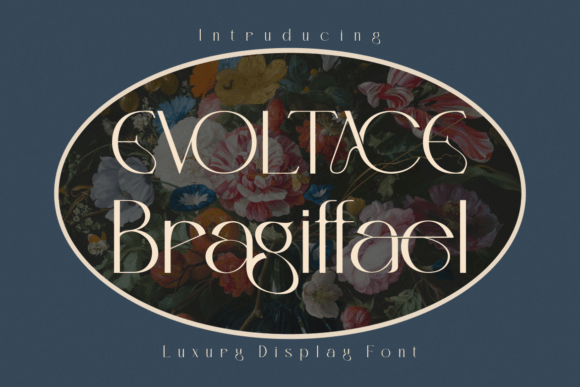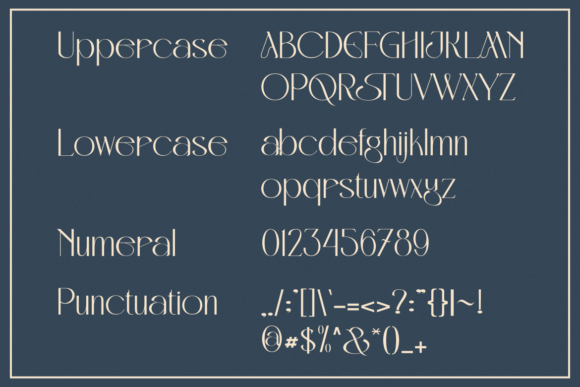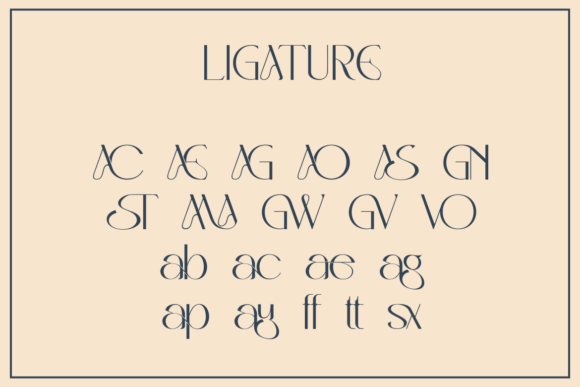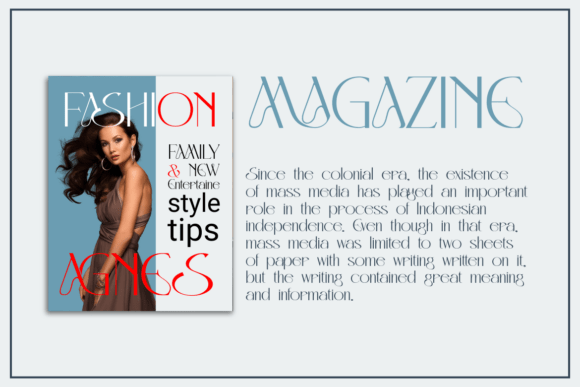
Evoltace Bragiffael Font
About the Evoltace Bragiffael Font
Welcome to the world of Evoltace Bragiffael Font, a typeface that will inspire your next great project. Evoltace Bragiffael is a high-class luxury display font that captures attention with its sophisticated, artistic letterforms and refined details. Ideal for logos, fashion branding, and event invitations, Evoltace embodies elegance and exclusivity. Its unique glyphs and alternative characters make every design feel curated and couture.
Evoltace Bragiffael excels in headline treatments, short impactful statements, and logo design where its refined details shine. It’s equally effective for high-end packaging and stylish event invitations, adding a touch of bespoke luxury. However, its ornate nature makes it unsuitable for body text or UI elements requiring high readability. Long paragraphs set in this font would be visually overwhelming and difficult to read.
Its elegant and sophisticated personality pairs well with clean sans-serif fonts like Helvetica Neue or Open Sans for a balanced contrast, providing readability where Evoltace Bragiffael offers visual impact. For a more luxurious feel, consider pairing it with a subtle serif such as Garamond or a script font like Great Vibes, used sparingly for accents.
The font’s overall aesthetic is one of refined elegance and understated luxury, making it perfect for brands projecting exclusivity and high quality, such as high-fashion, jewelry, or premium spirits.
Evoltace Bragiffael Font Usage Examples
Evoltace Bragiffael Font Example